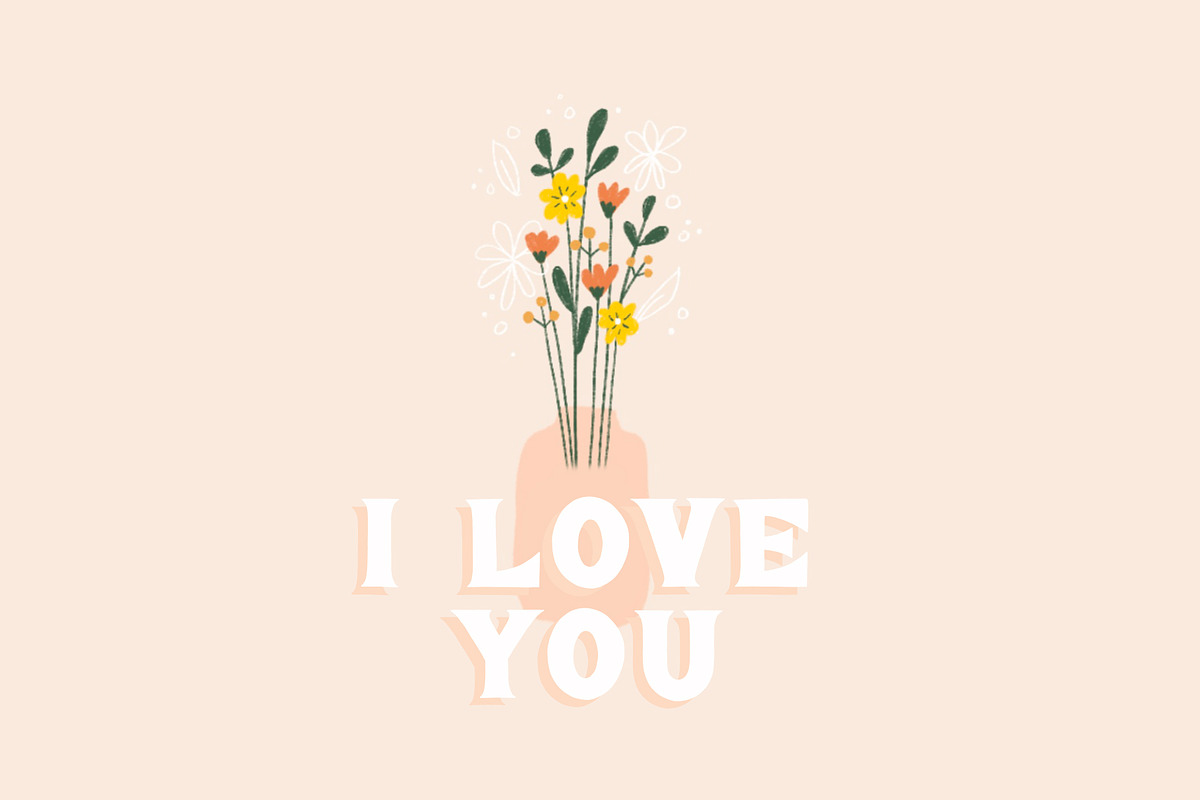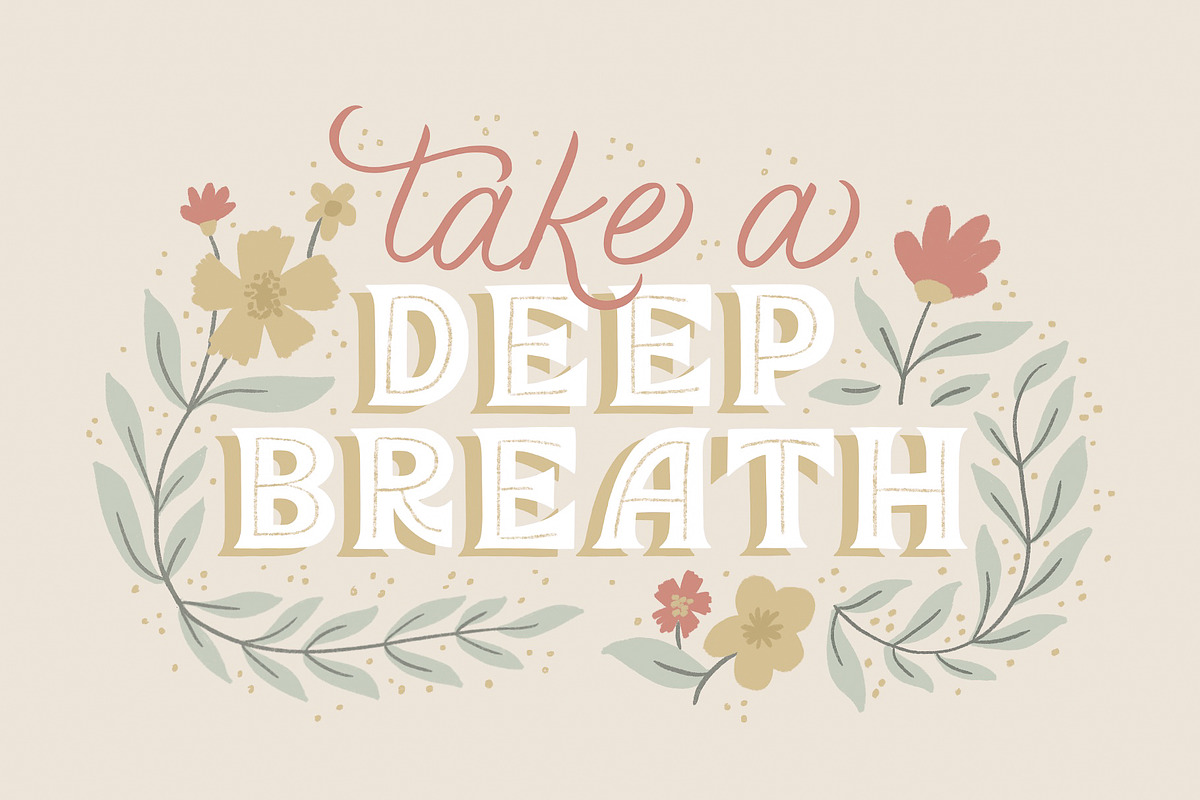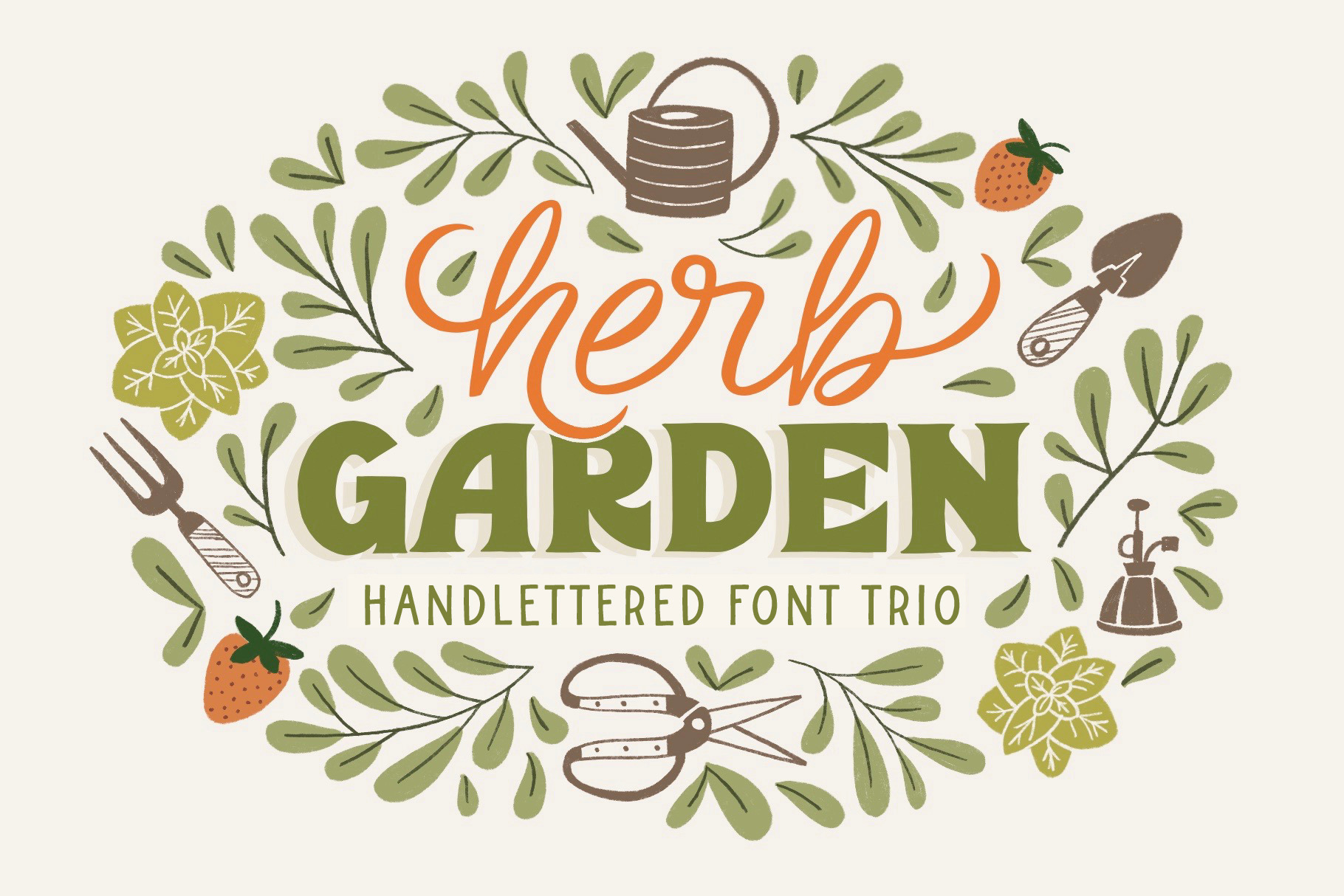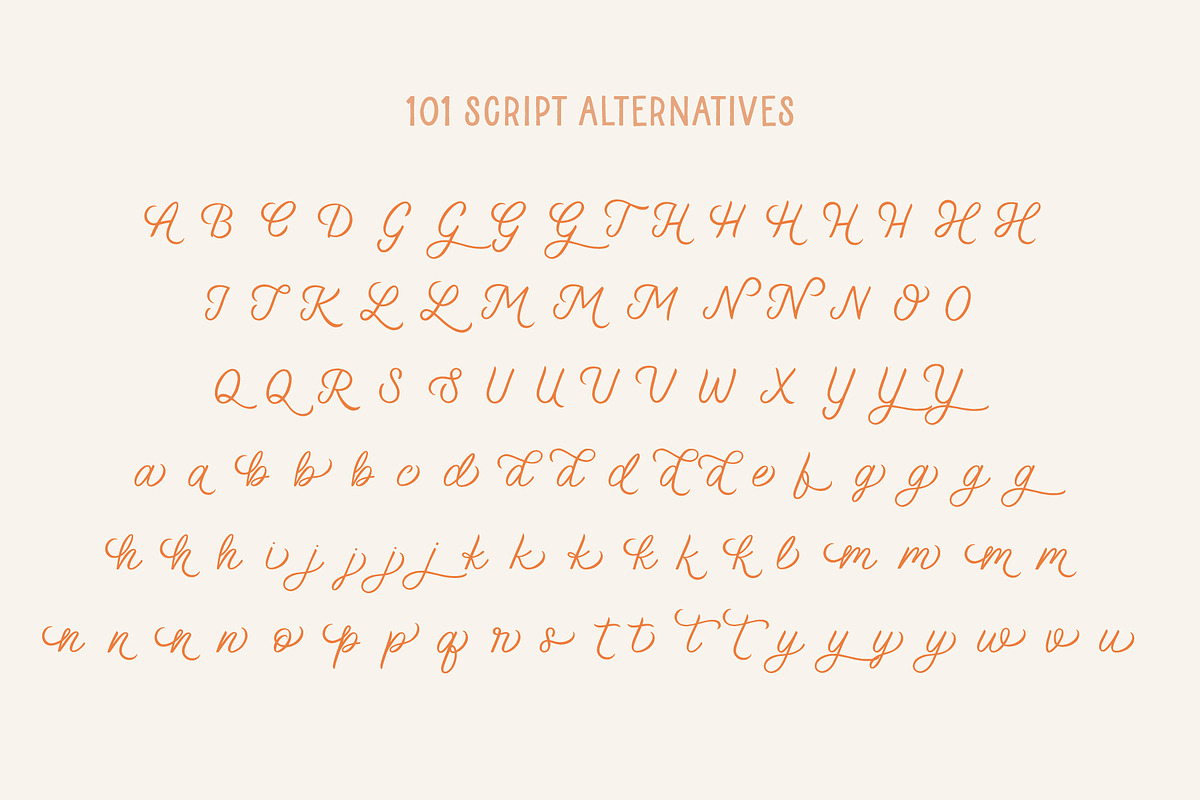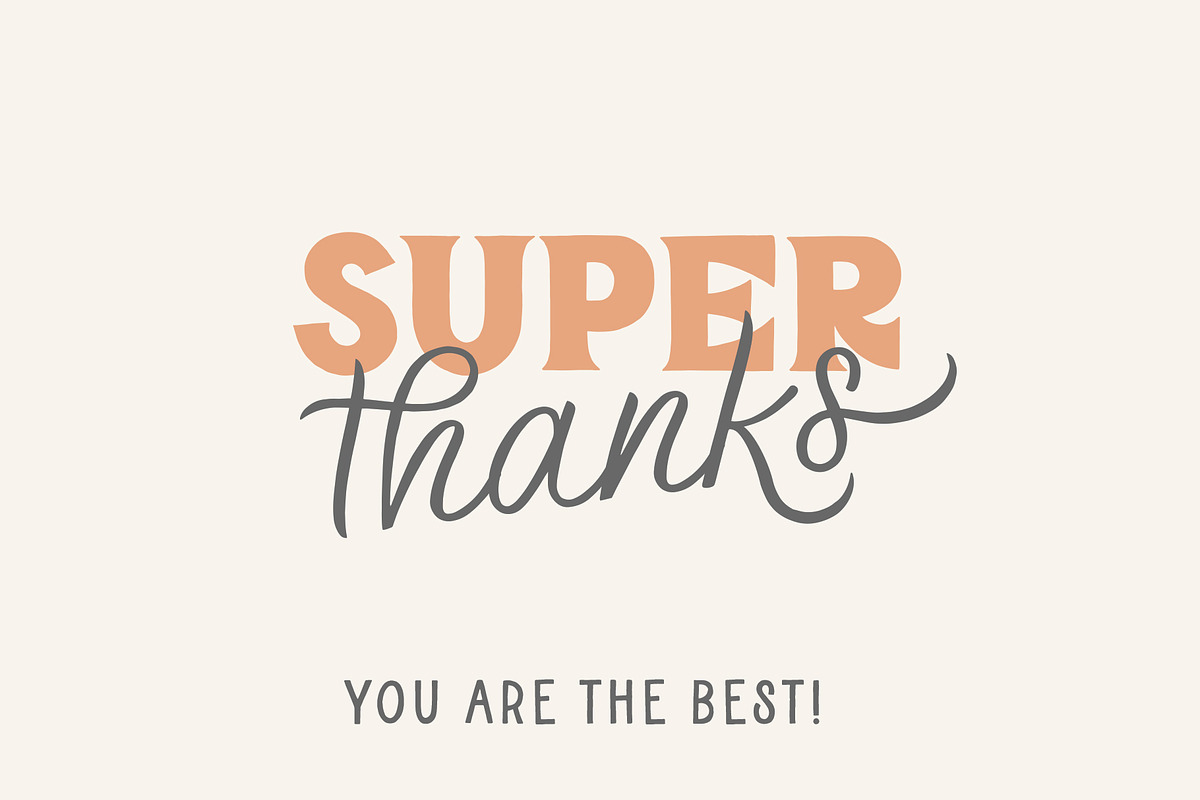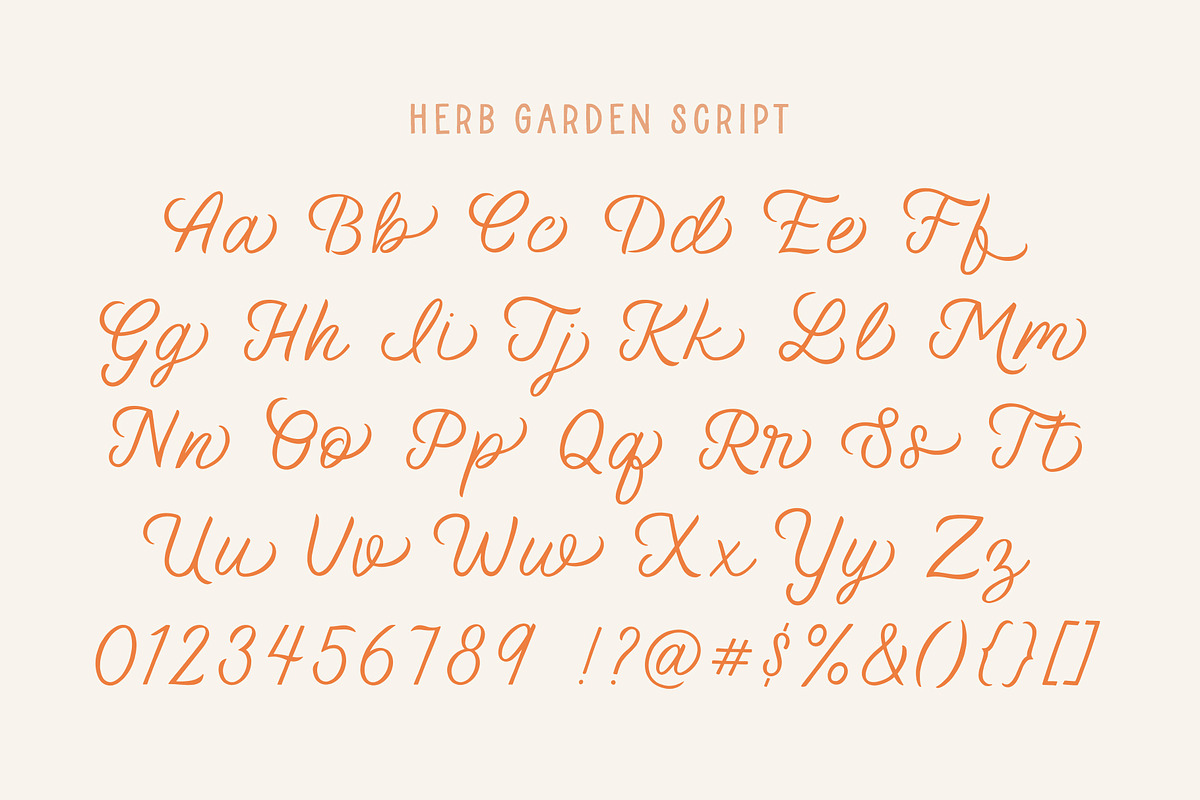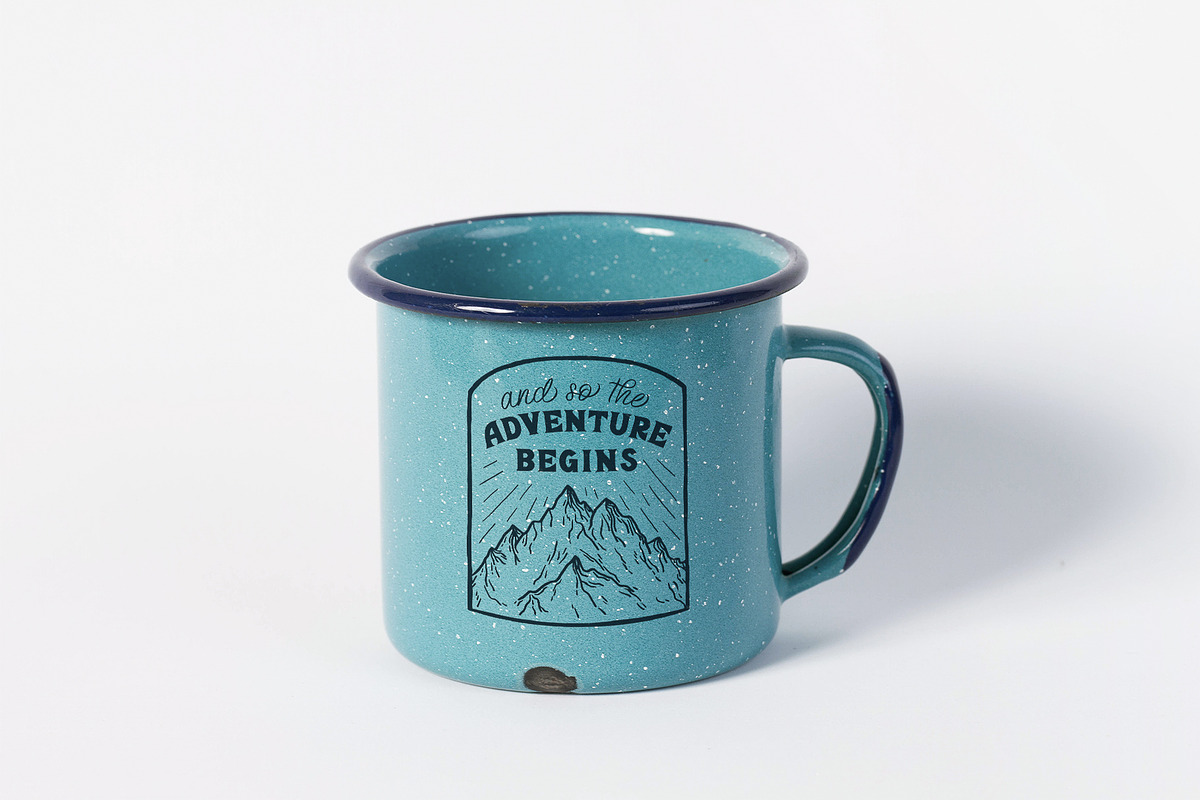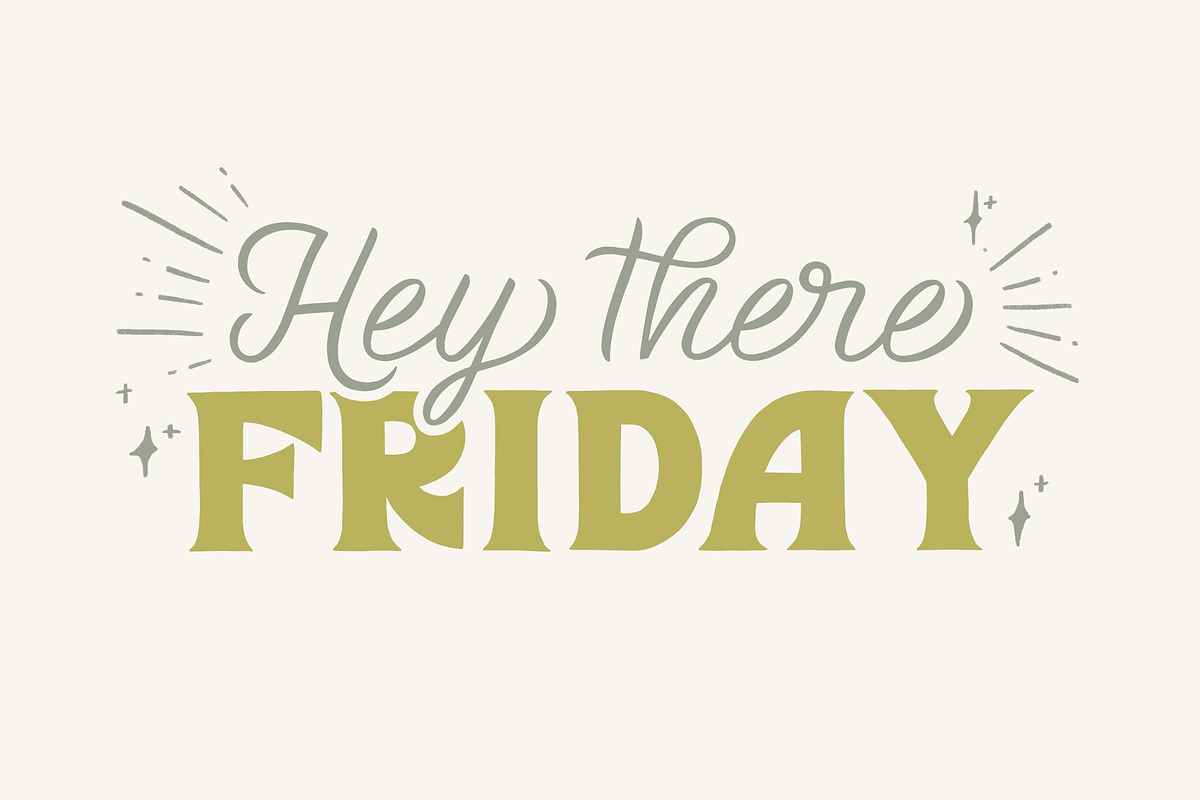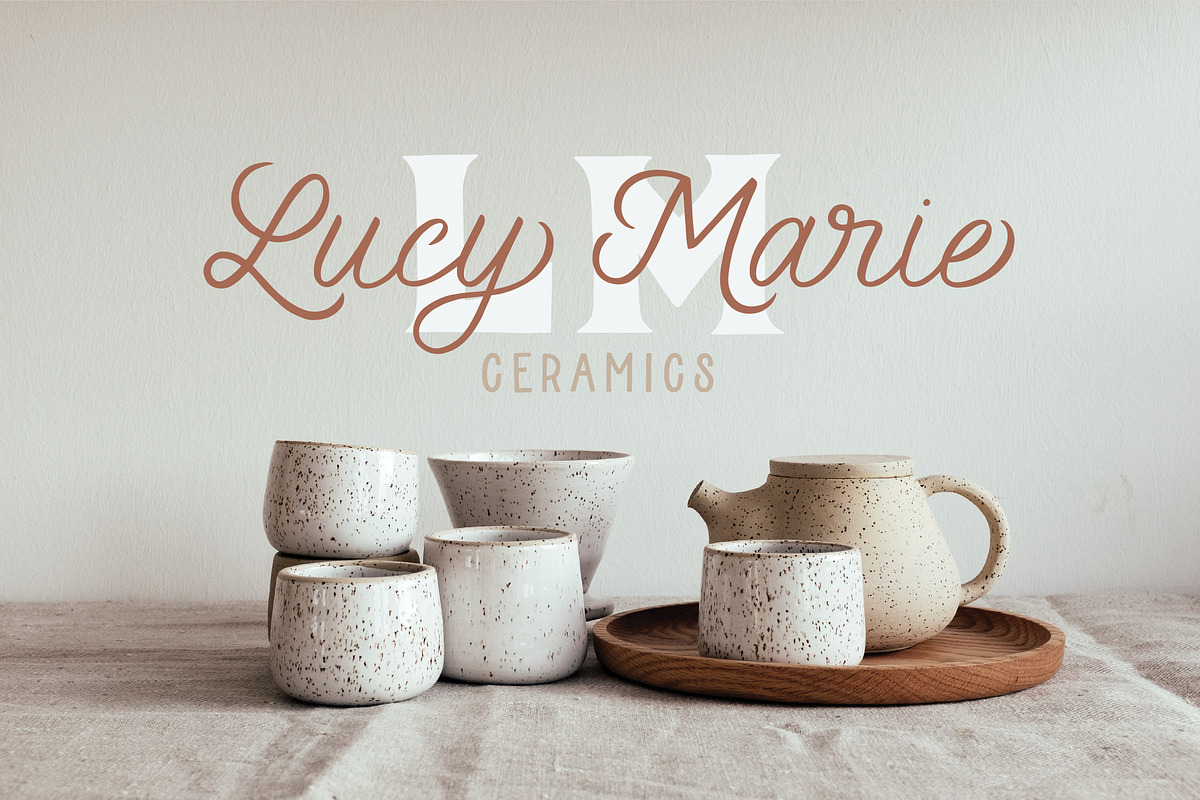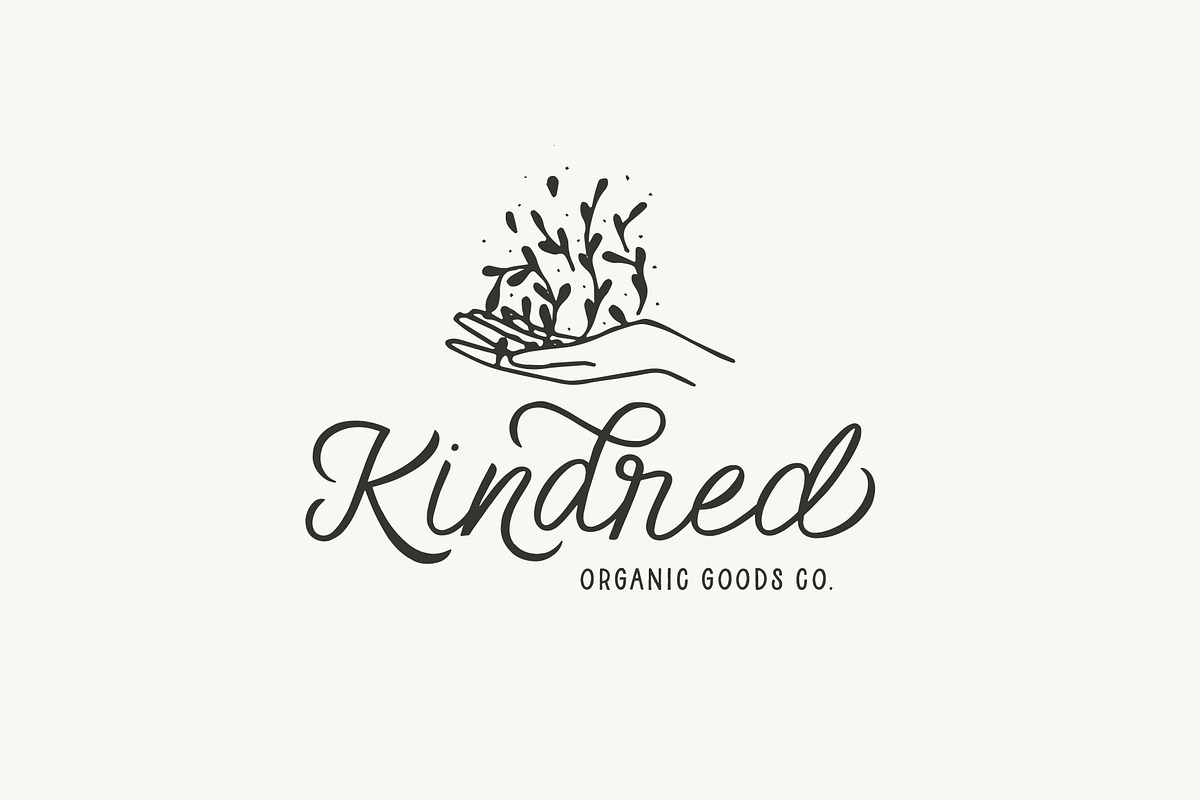
Herb Garden Font Trio
An organic and playful font trio! These fonts are hand-drawn to convey a friendly feel while also including tons of alternatives to fit every project's needs. Each font is inspired by hand-lettering art and each character includes natural imperfections to bring out that handmade look.
The Details:
- Four Font Styles: Script, Serif, Sans & Sans Italic. Great for pairing or using on their own!
- Over 100 Script Alternatives & Ligatures: Each word can be customized to add a swash or additional detail to make each line truly look handwritten! The ligatures also allow specific letters to have more natural connections.